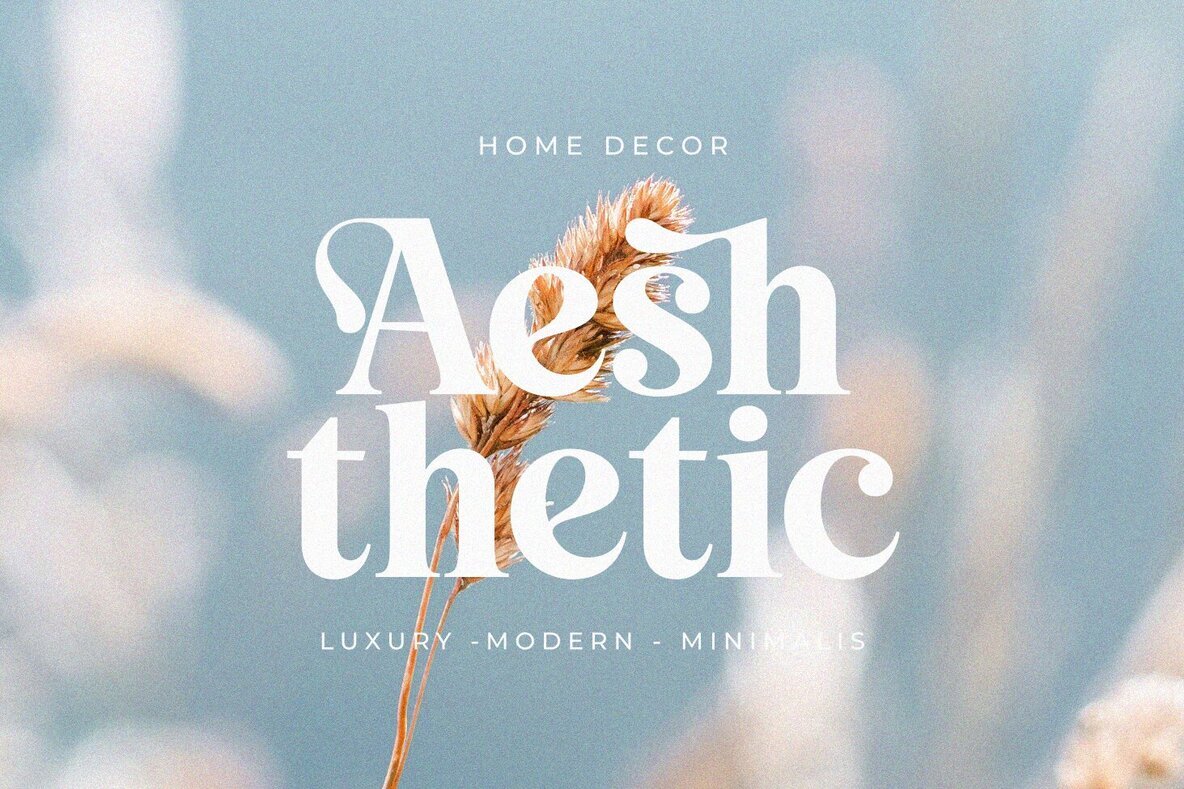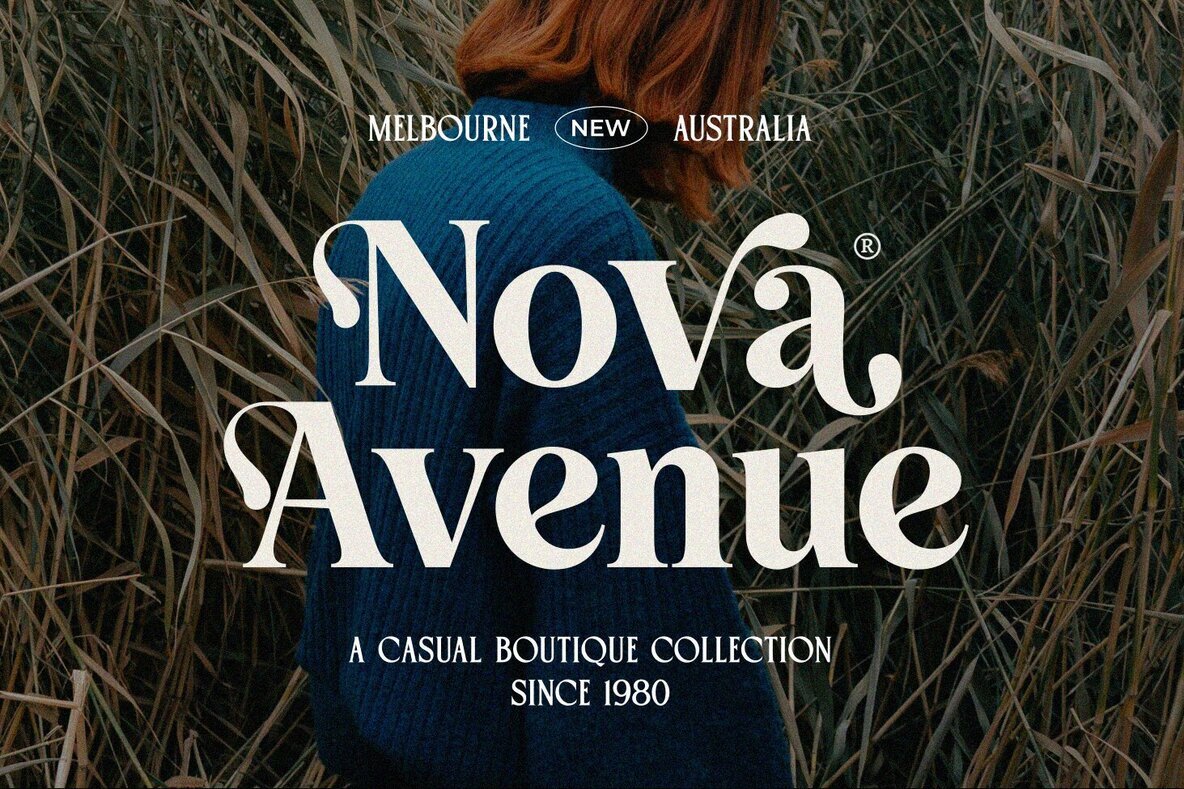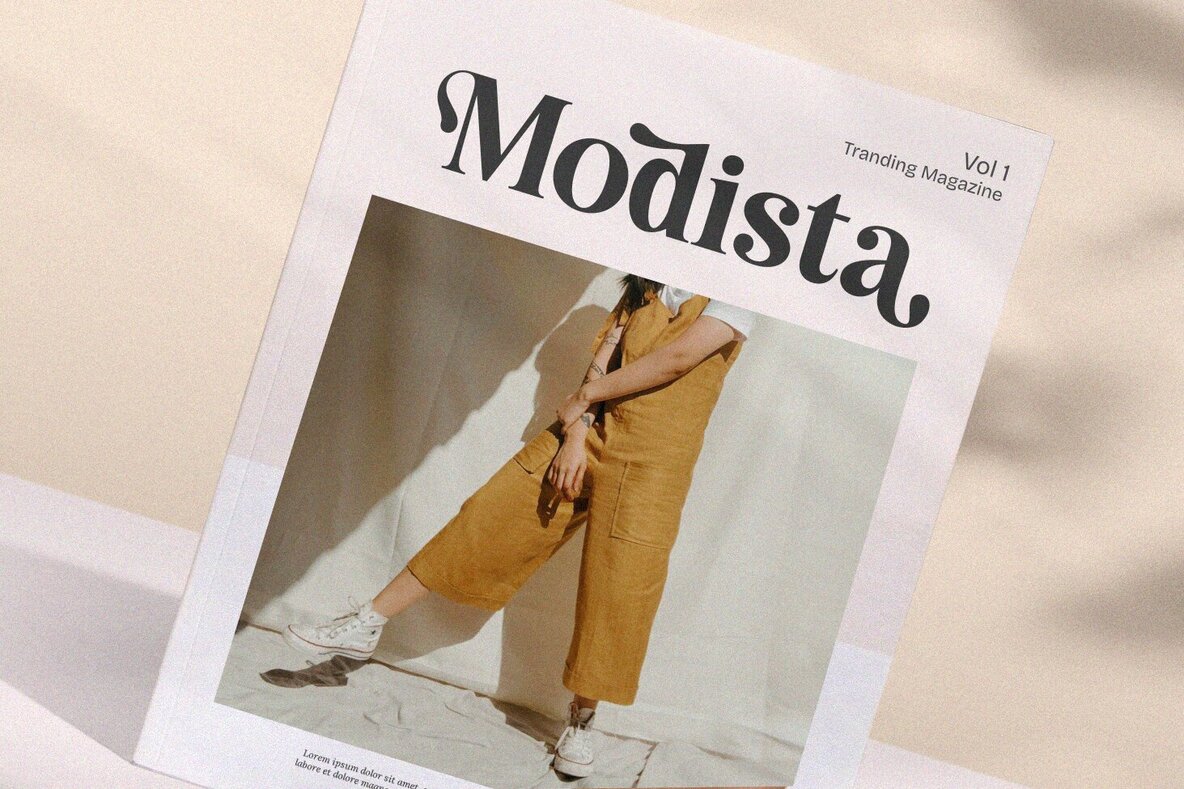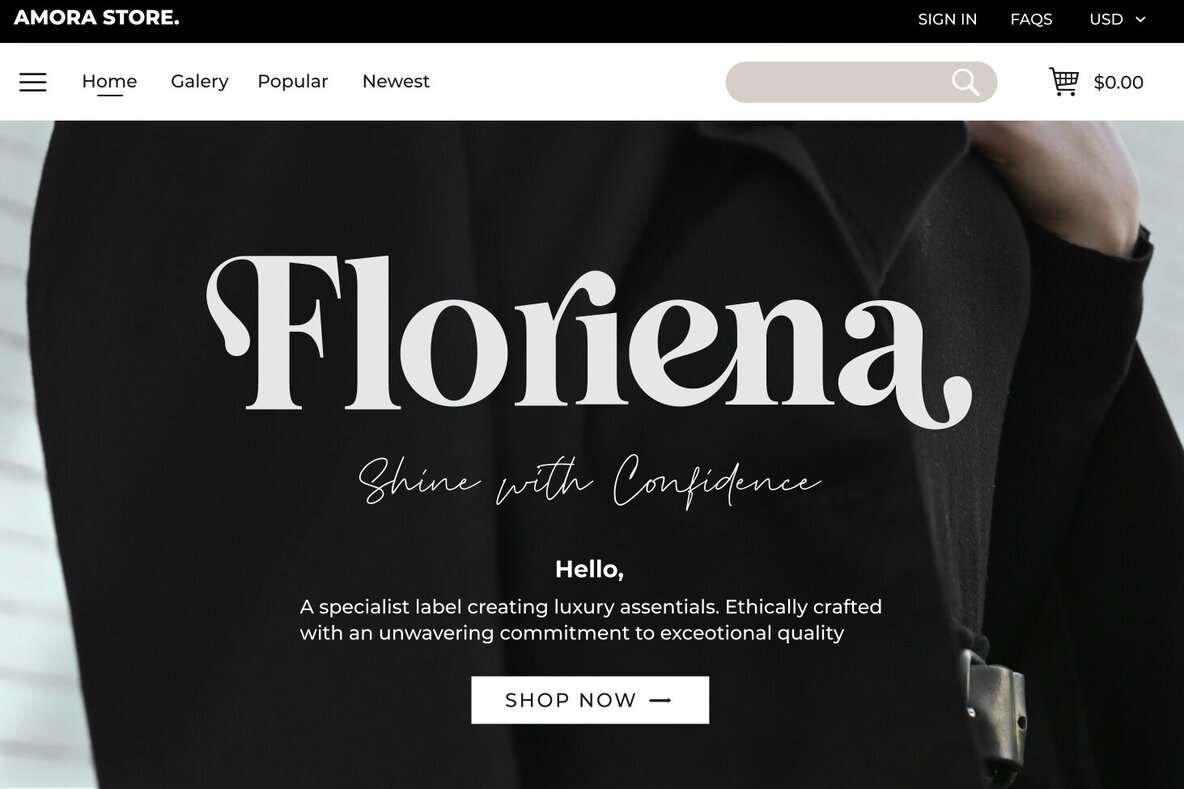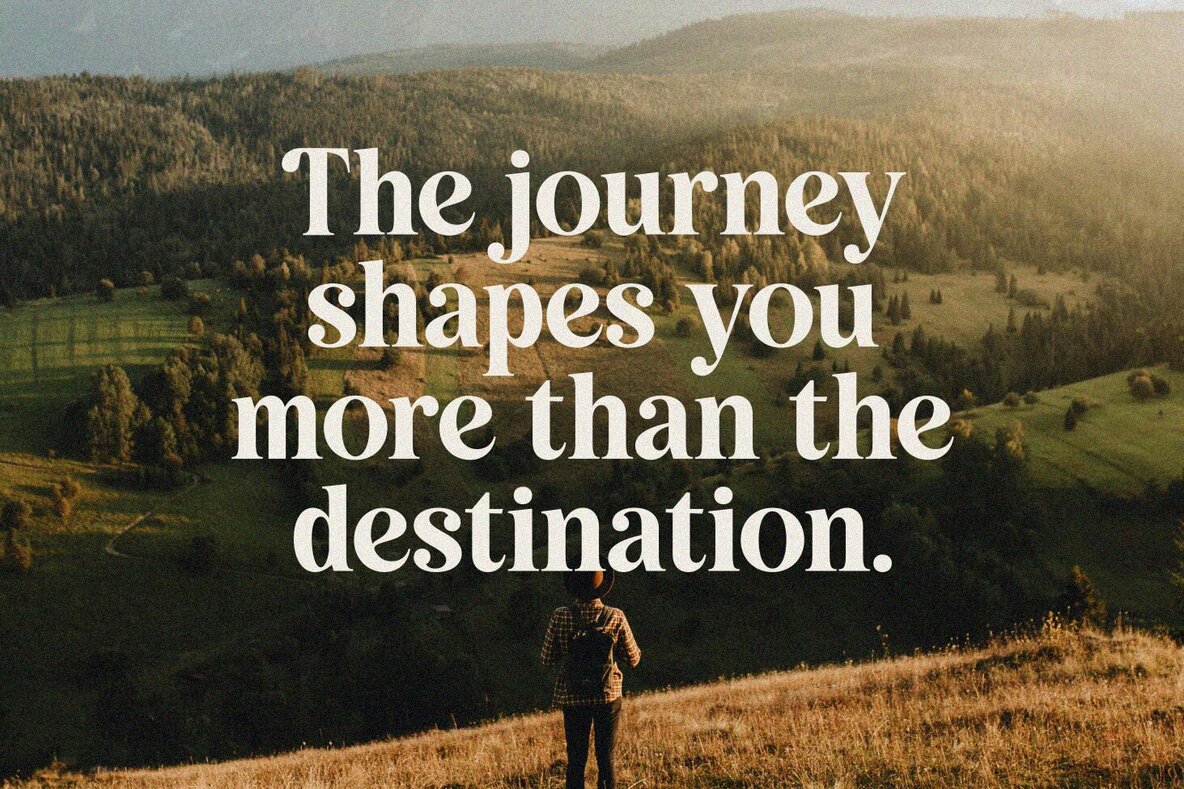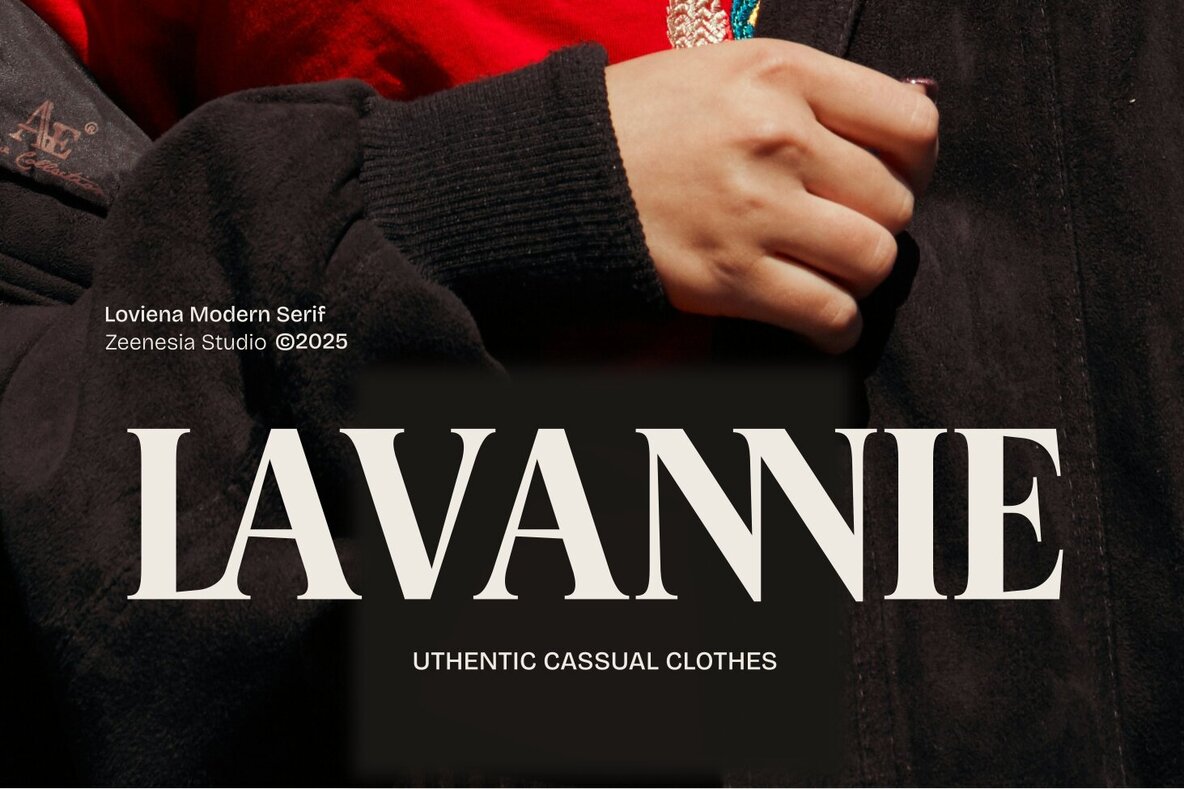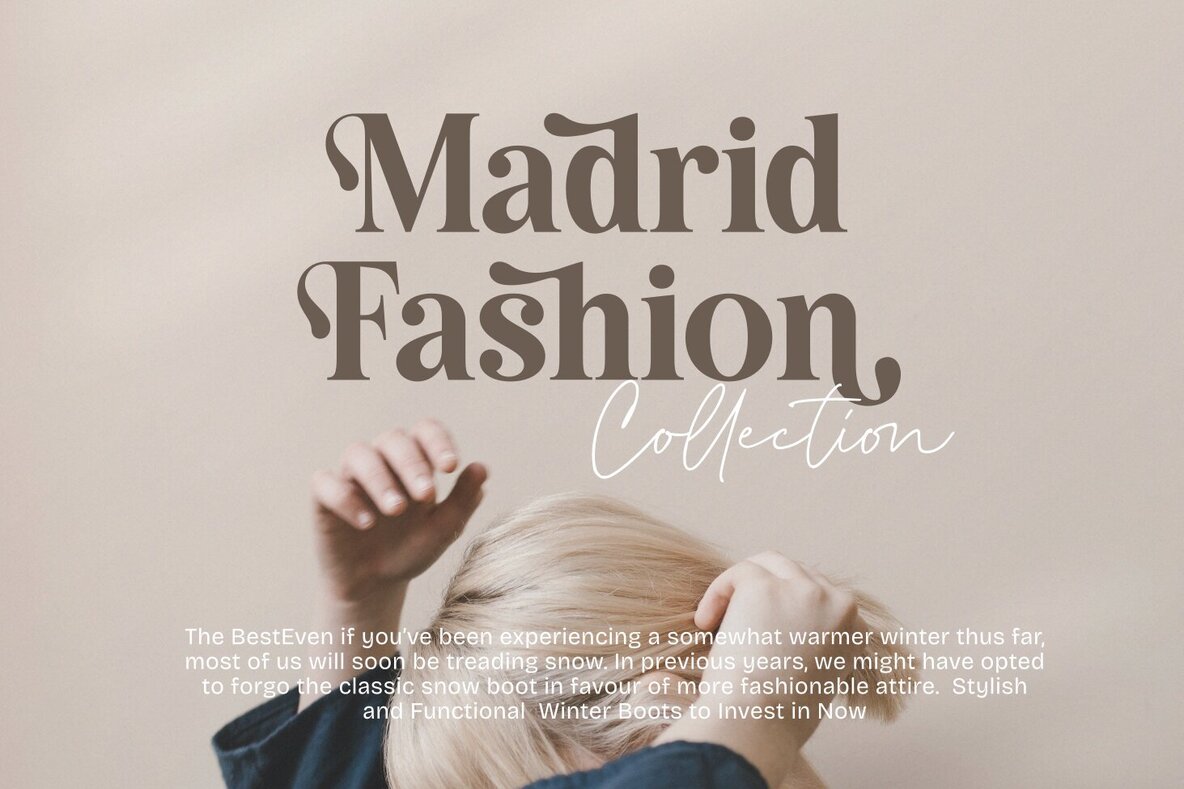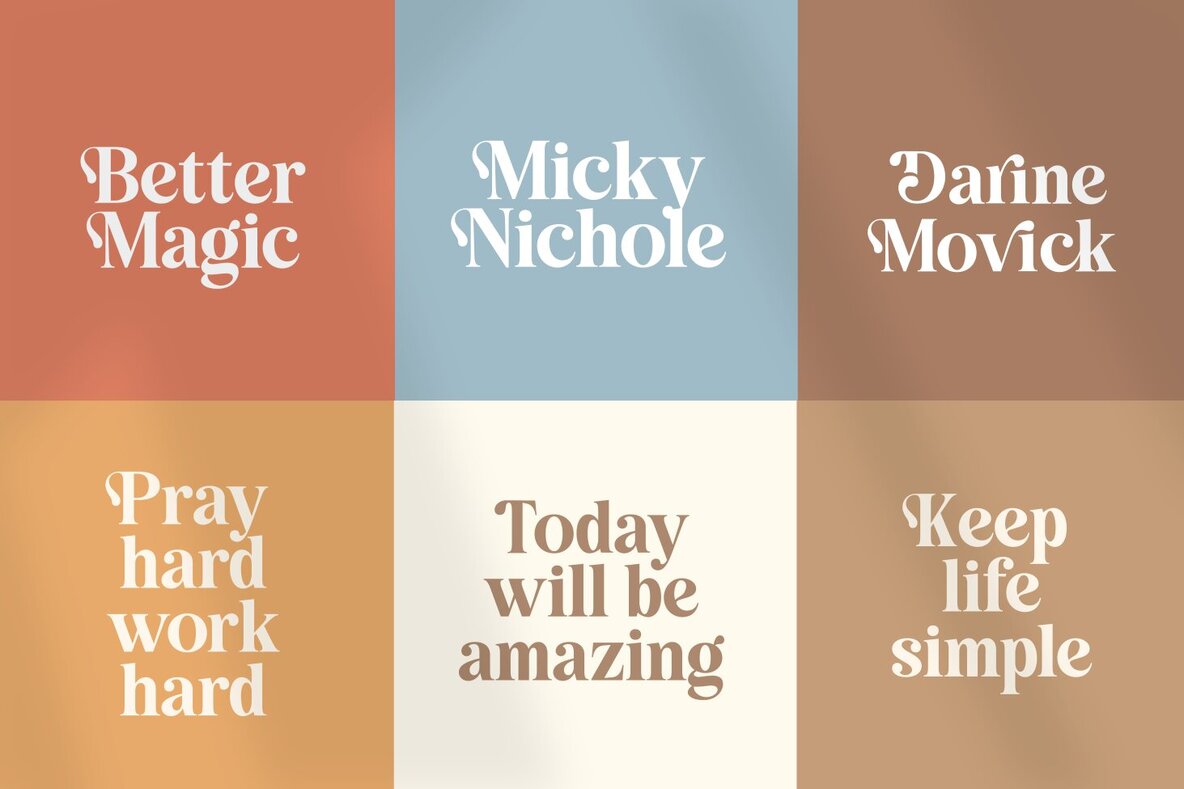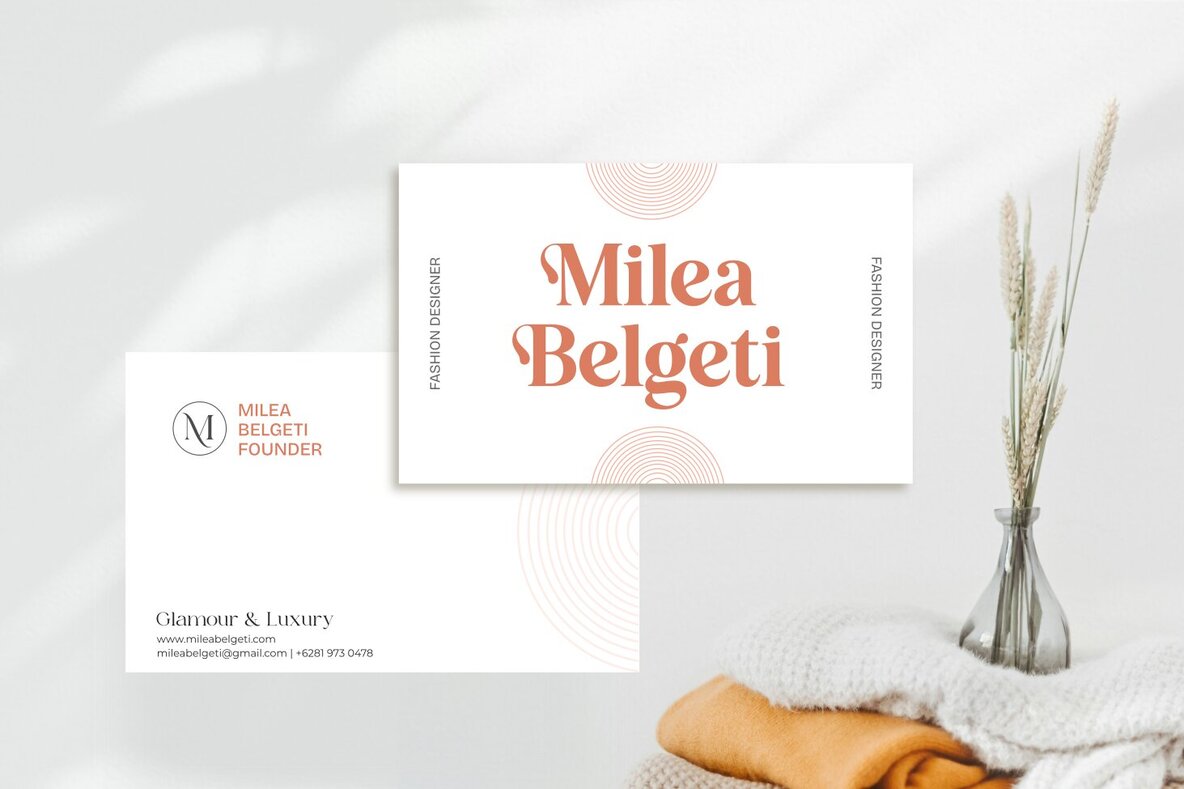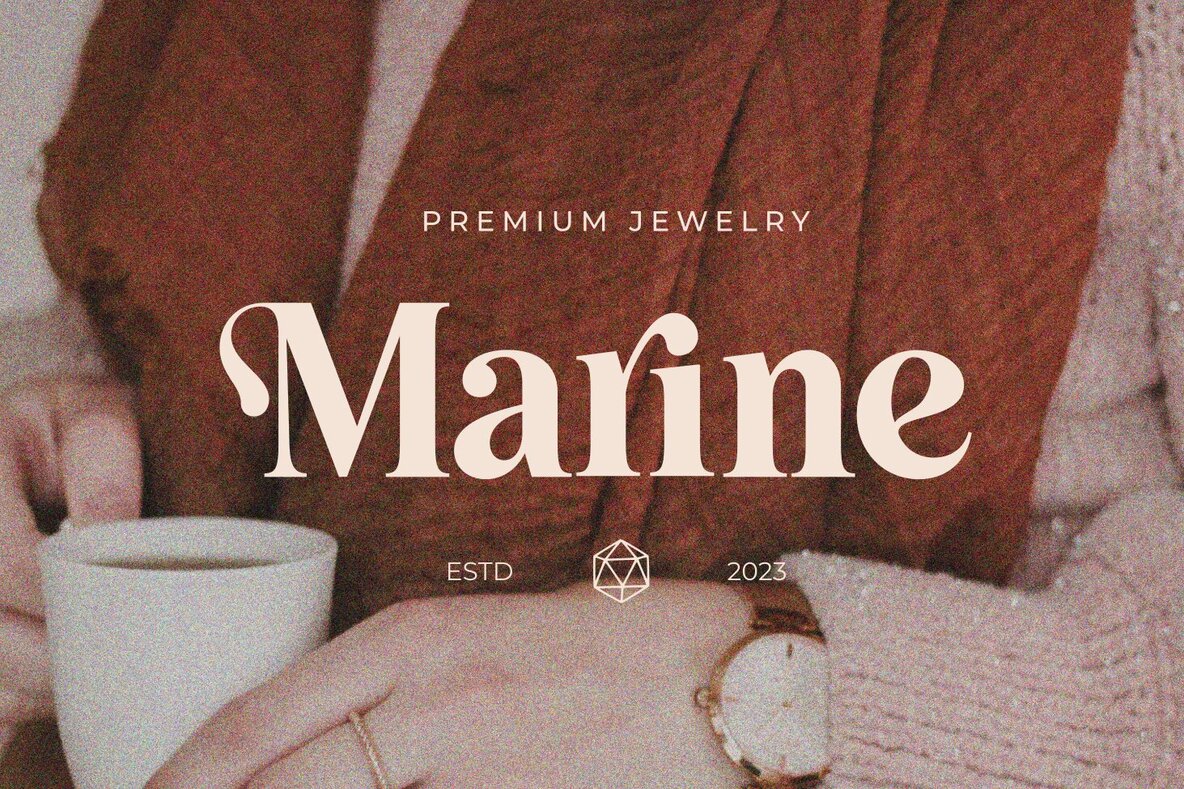
Loviena Font
Loviena Regular
Loviena is a warm and elegant serif typeface that blends sophistication with approachability. Its refined curves and smooth transitions make it perfect for branding, editorial layouts, and invitations. Designed for versatility, Loviena offers exceptional readability and supports multilingual characters, making it an ideal choice for creating designs with a timeless, humanistic touch. What’s Included :